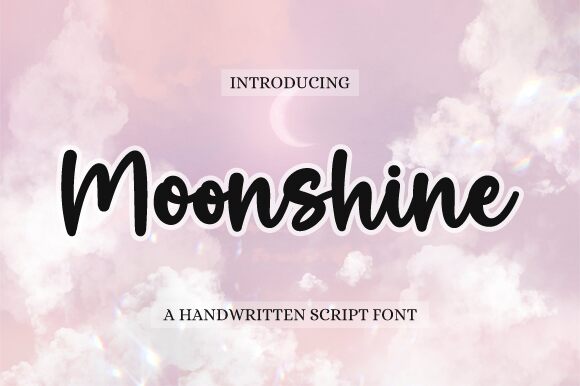
Moonshine
Moonshine font, crafted by Graphix Line Studio, is a captivating handwritten typeface that breathes life into your design projects. Its fluid strokes and seamless curves create an inviting aesthetic that's both personal and artistic. This free font embodies a natural charm, making it perfect for projects needing a personal touch—such as branding, social media graphics, or invitations.
Moonshine's style beautifully captures the essence of creativity and warmth, while its dynamic yet clear forms ensure readability across various applications. Download this enchanting font to infuse your work with a sense of originality and flair. Whether you're designing for digital platforms or print media, Moonshine offers a versatile option that stands out in any context. Explore the possibilities with Moonshine font today!